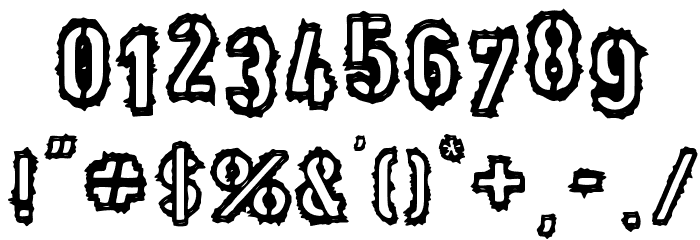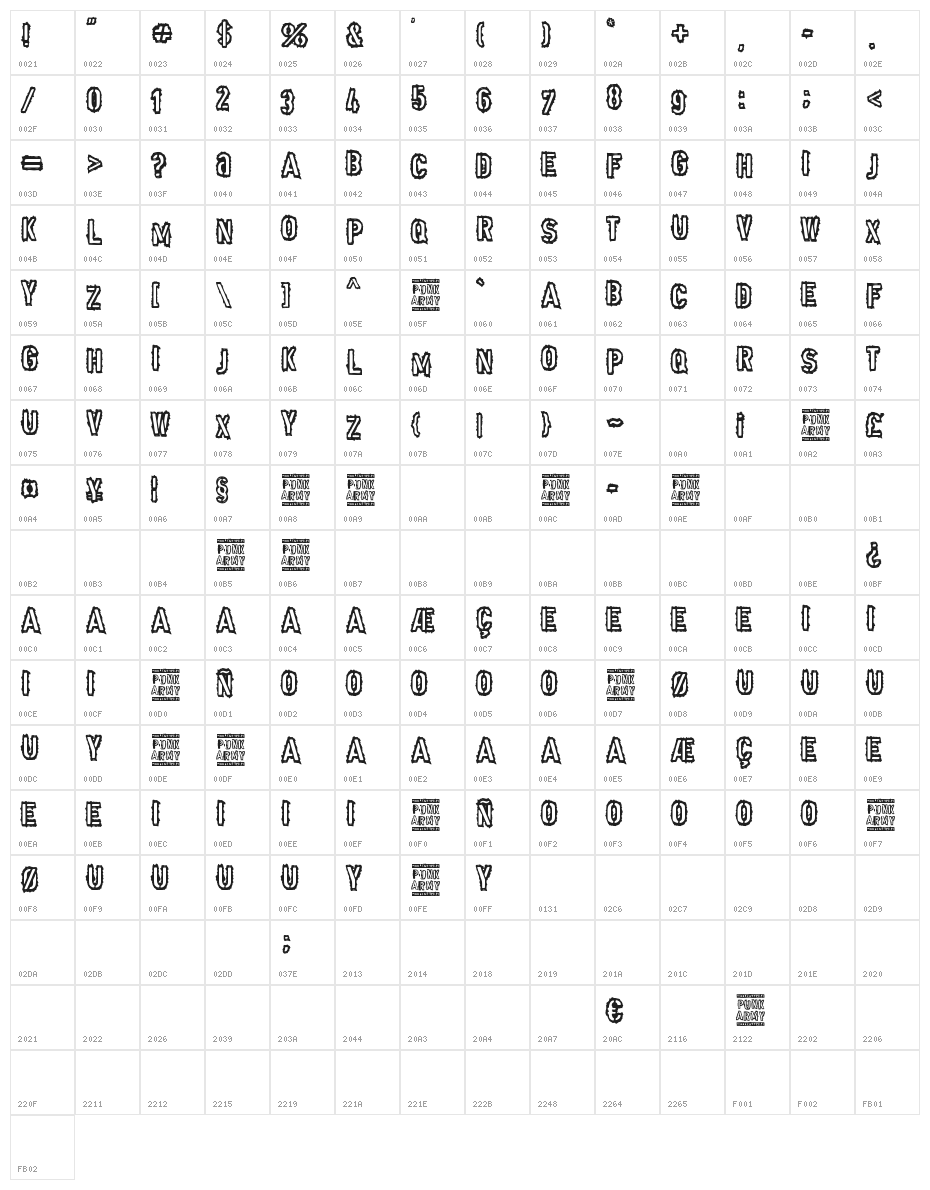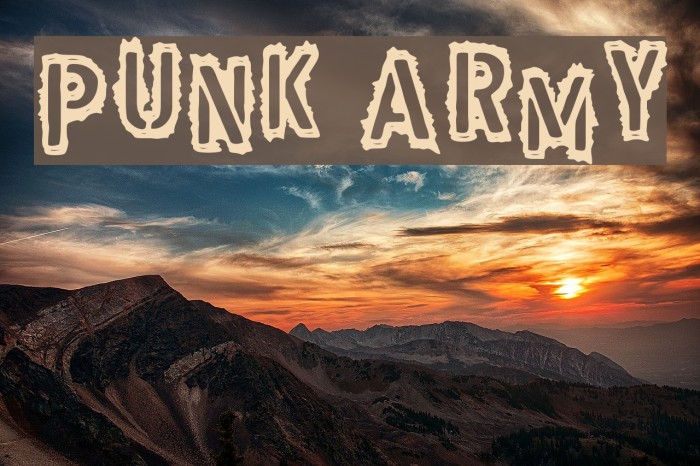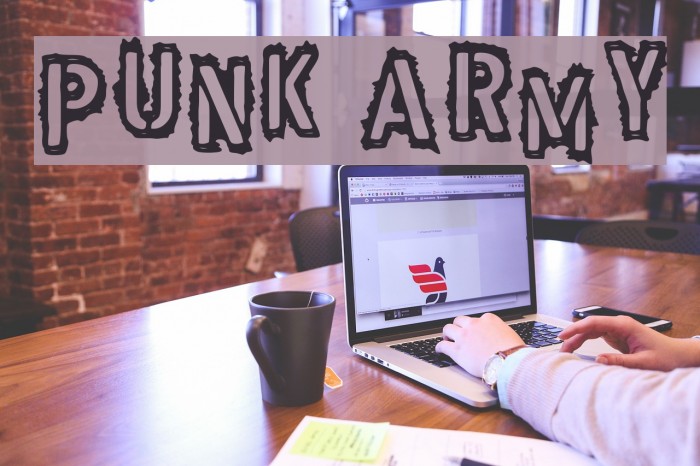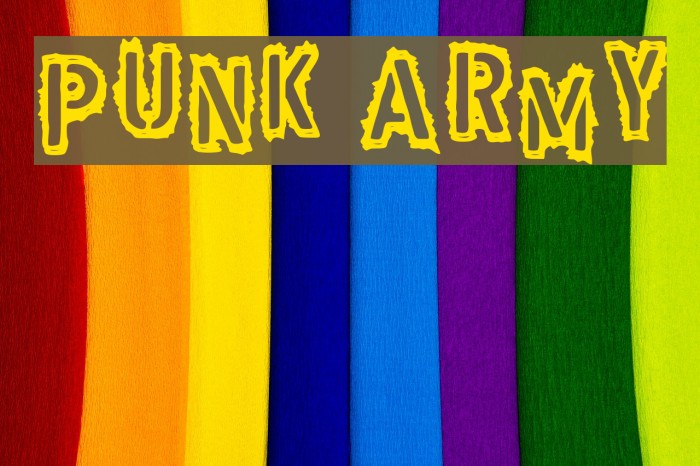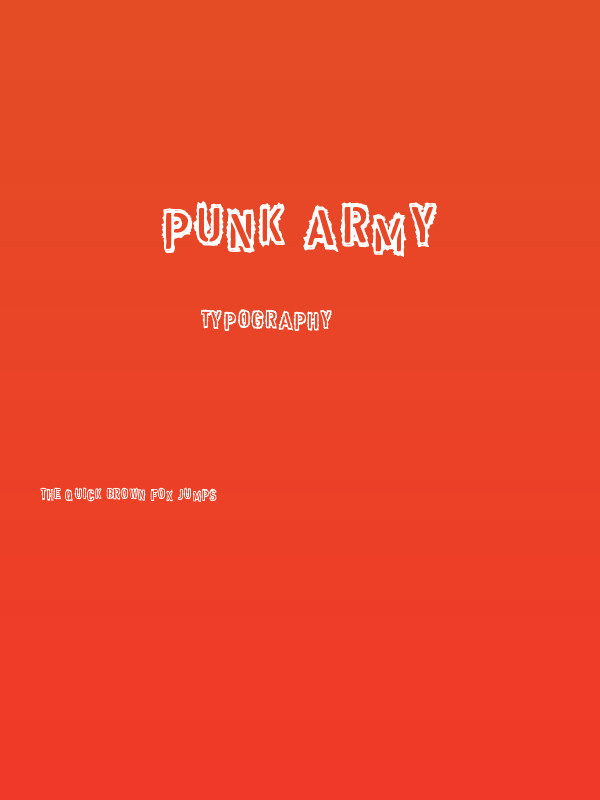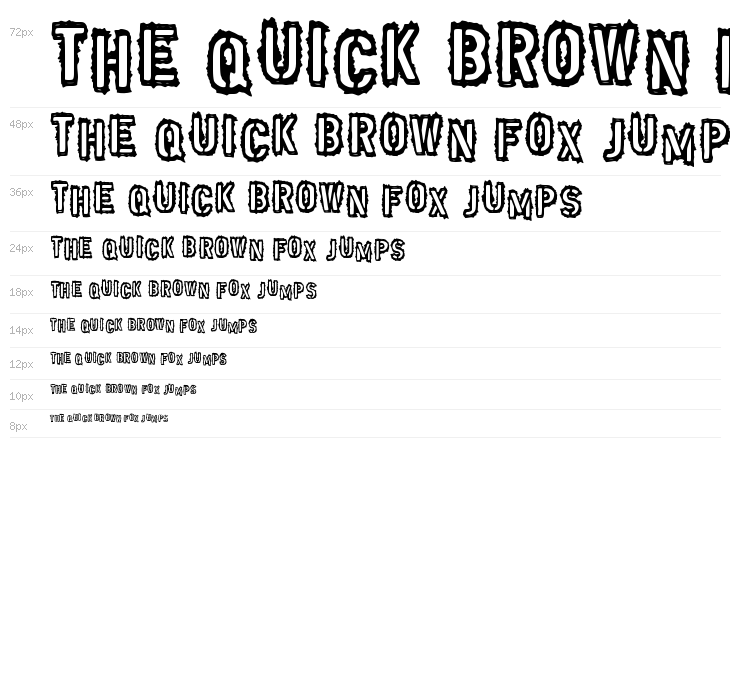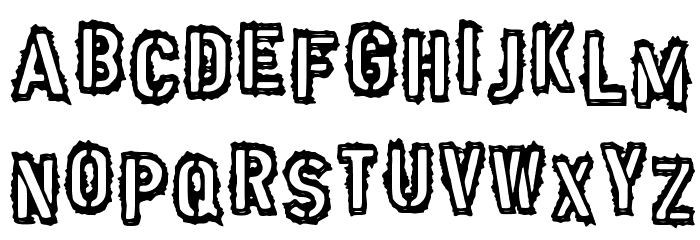
Punk Army Font
Punk Army Description
This font features a bold, rugged design with a distressed, grunge-like appearance. The characters have a rough, textured outline that gives them a rebellious and edgy feel. The uppercase and lowercase letters maintain a consistent style, with sharp angles and irregular edges that suggest a hand-drawn or stencil-like quality. The numbers and special characters follow the same aesthetic, making the font suitable for projects that require a bold, impactful look. The overall style is reminiscent of punk or military themes, with a strong emphasis on individuality and nonconformity.
| Overall Style | Punk, Grunge, Edgy |
| Proposed Projects | Ideal for music album covers, posters, streetwear branding, and any project needing a bold, edgy look. |